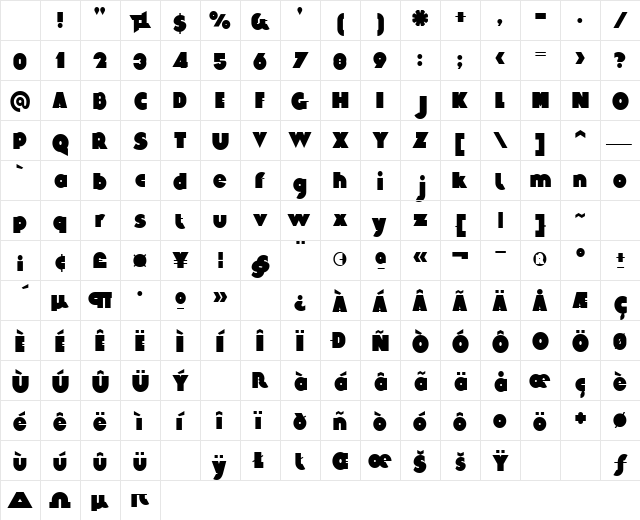
Complete Eagan Regular glyph index. Displaying only characters natively supported by Eagan Regular font.
Eagan is a composed and adaptable typeface that performs quietly and consistently across a wide range of design contexts.